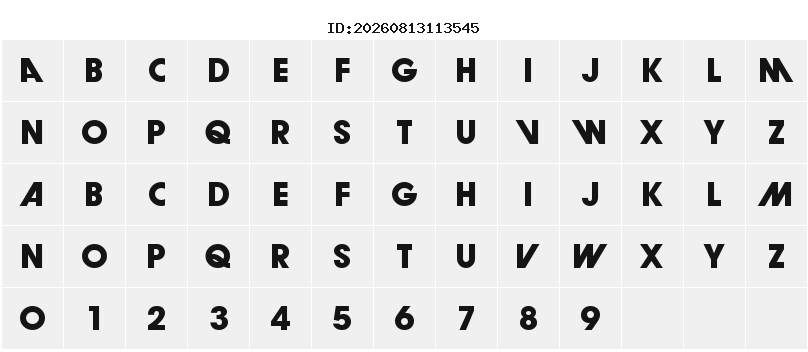
• Font Name: Rede Globo
• Designer: Herb Lubalin and Tom Carnase
Rede Globo.ttf is a modern, elegant sans-serif font designed for ultimate readability and visual harmony. Perfect for branding, headlines, web design, and print materials.